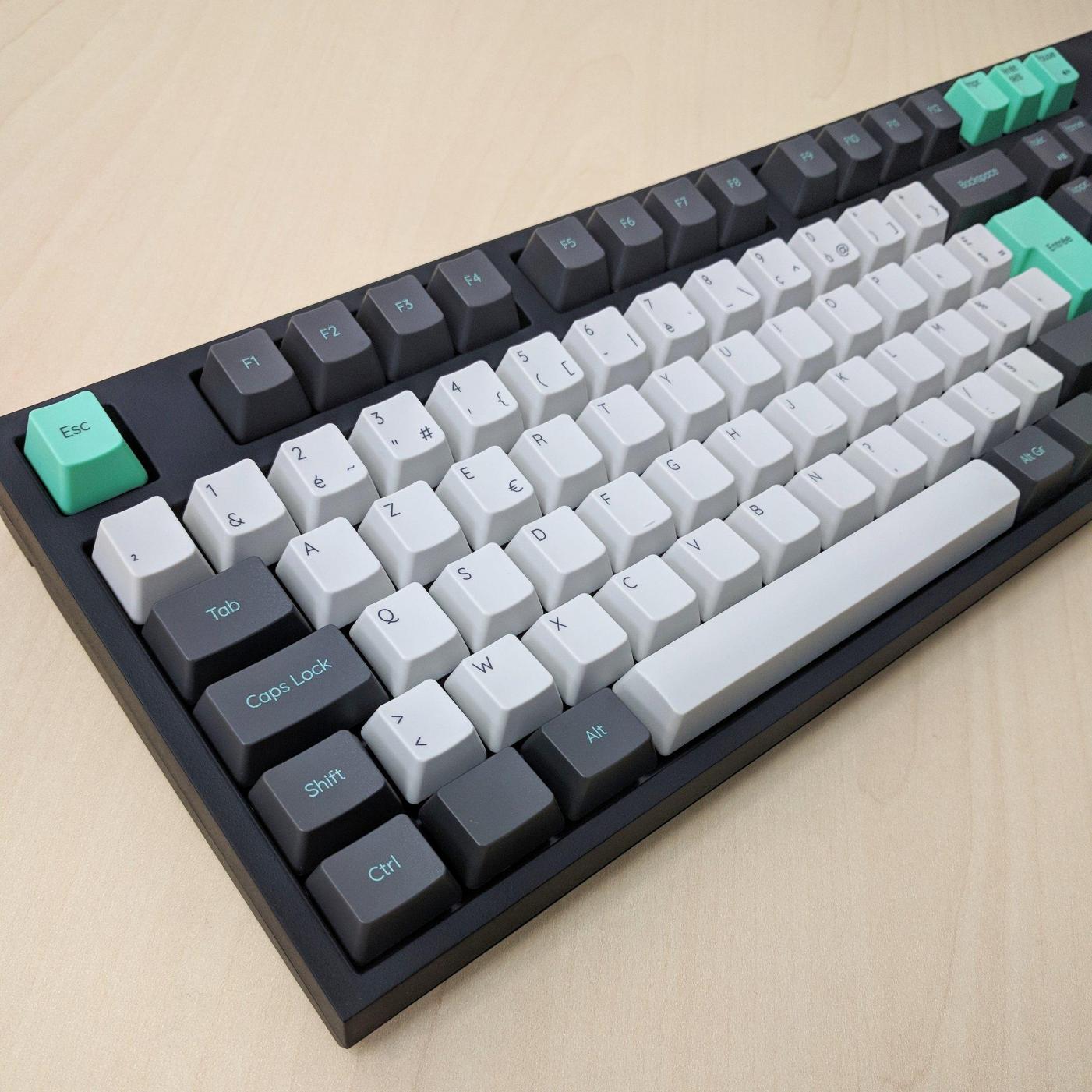
Font from keyboard keycaps (WASD keyboard)
I am going to design a new set of keycaps for my WASD keyboard and I saw the attached picture on WASD's Twitter. I really liked the fonts on the picture. Unfortunately they were not able to tell me which font was it, and the didnt't held any information on who posted the keyboard picture, so my last oportunnity is trying to identify the font with some help, if I want to use it. I would like to identify the fonts on this keyboard, particullarly the one in the white keys. This picture was uploaded on 2018. Could anyone be able to help me? Thank you
I wonder if it is an in-house font and so can't be identified.
This keyboard layout has been designed by a client, not by the sellers, so I assume it has to be some standard font
The angle of the photo doesn’t help, but, except for |&|, Quicksand looks fairly similar.
Correction: the version on Google Fonts seems to be a better match, and it also has the right type of |&|.
It does look like Quicksand, it has the right "&" and also the Q. If its not, its really close. Should be enough information for my purpose. Thank you very much for the help!
out of curiosity, the font of the special keys (CTRL, CAPS LOCK...), is that Century Gothic?
I mean now the font on the black keys. The white ones do seem Quicksand. Thank you
you are right, I don't know why I thought it was another. Thank you!